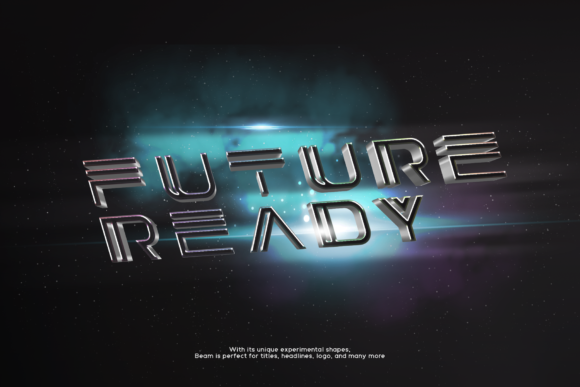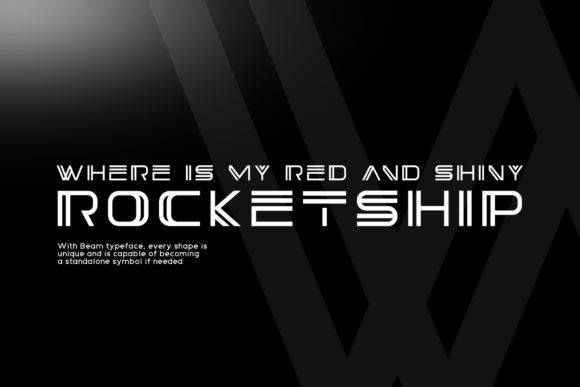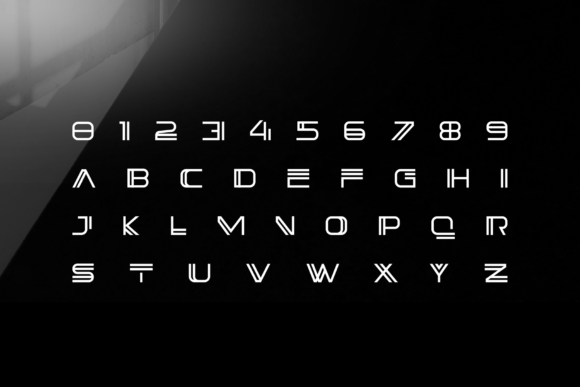
Illuminate Your Designs with the Power of Beam Font
Have you ever stared at a blank canvas, desperately searching for the perfect font to bring your creative vision to life? We’ve all been there. The struggle is real, but the solution is here. Introducing Beam Font, a futuristic display font designed to elevate your designs to new heights.
Whether you’re a seasoned designer or just starting out, Beam Font is the perfect tool to help you shine. Its sleek and modern aesthetic makes it the perfect choice for any project, from futuristic sci-fi concepts to sleek and minimalist branding. With Beam Font, you’ll be able to add a touch of sophistication and style to your designs, setting you apart from the crowd and making your work truly unforgettable.
• Size: The font family consists of multiple weights, ranging from Light to Ultra, providing a wide range of options for designers and typographers.
• Resolution: Beam Font is designed to be scalable, ensuring it remains crisp and clear at various resolutions, from screen to print.
• Unique Characteristics: Beam Font features a distinctive, modern design with clean lines and a neutral color palette, making it suitable for a wide range of applications, from corporate branding to editorial design.
• Language Support: Beam Font includes comprehensive language support, covering Latin, Cyrillic, and Greek scripts, as well as support for Unicode characters.
Beam Font Review
Overall, I have mixed feelings about the Beam Font. While it has some great features, it also has some limitations that might make it less desirable for certain projects.
• Clean and Modern Aesthetic: Beam Font has a sleek and modern look that’s perfect for tech-related projects, apps, or websites.
• Legibility: The font is highly legible, making it easy to read even at smaller font sizes.
• Customization Options: Beam Font offers a range of customization options, including font weights, sizes, and colors.
• Limited Language Support: Beam Font is primarily designed for Latin-based languages, which might limit its use for non-English projects.
• No Italic or Bold Variants: While the font has a range of weights, it doesn’t offer italic or bold variants, which might make it less suitable for certain applications.
While Beam Font has its strengths, its limitations might make it less desirable for certain projects. However, if you’re working on a modern tech-related project, it could be a great choice.
Use Beam Font for creating modern and sleek designs, such as business cards, brochures, and social media graphics.
Experiment with different font sizes and colors to create visually appealing headings and text.
Combine Beam Font with other fonts to create a unique and eye-catching design.